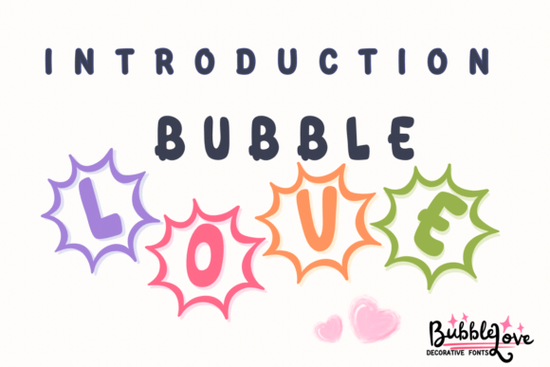
If you're looking for a friendly, rounded decorative font that feels personal and handmade like something you’d sketch in a journal or write on a handmade card the Bubble Love Font fits naturally into your creative workflow. It’s not overly formal or technical, and it doesn’t try to be everything at once. Instead, it offers gentle curves, soft edges, and consistent spacing that make it easy to read at small sizes and charming at larger ones. Whether you’re designing greeting cards for a local boutique, prepping files for print-on-demand mugs, or drafting social media quotes for a small business, this font brings warmth without sacrificing clarity.
Where does Bubble Love Font work best?
Because it’s designed as a decorative font, Bubble Love shines where personality matters more than strict typographic neutrality. Think of it as the handwritten note tucked inside a gift box not the fine print on a legal document. You’ll find it especially useful for:
- Greeting cards and wedding stationery (think “just married” tags or “thank you” notes)
- Handmade journals and printable diary pages
- Social media graphics especially Instagram story quotes or Pinterest pins with affirmations or seasonal messages
- Small-batch apparel like kids’ tees or tote bags with playful phrases
- Stickers, labels, and packaging for craft-based small businesses
It’s not meant for long paragraphs or body text, but it handles short bursts of copy beautifully especially when paired with a clean sans-serif for contrast. If you’ve used fonts like Bubble Love Font alongside something like Montserrat or Poppins, you’ll notice how well they balance each other.
How do designers and crafters actually use it?
- A stationery seller in Portland uses Bubble Love for “You’re amazing!” stickers sold at local markets. She layers it over watercolor backgrounds and finds the rounded shapes hold up well even when printed on matte sticker paper.
- A teacher creating classroom resources drops it into editable PDF worksheets especially for younger grades because students respond well to its approachable look.
- A POD seller on Etsy pairs it with minimalist line art for mugs and notebooks, using it only for short phrases (“Good vibes only”, “Made with love”) to keep production costs low and file sizes manageable.
One thing they all agreed on: Bubble Love works best when kept simple. No need for heavy shadows, outlines, or gradients its strength is in its lightness and consistency.
Is it compatible with common design tools?
This is a single-style decorative font not a family with bold, italic, or variable weights. So if your project needs strong visual hierarchy (e.g., headlines + subheads + body), plan to pair it thoughtfully. Also, while it includes multilingual support for Western European languages, it doesn’t cover Cyrillic, Arabic, or East Asian scripts. That’s typical for fonts in this category, but worth checking if your audience spans multiple language groups.